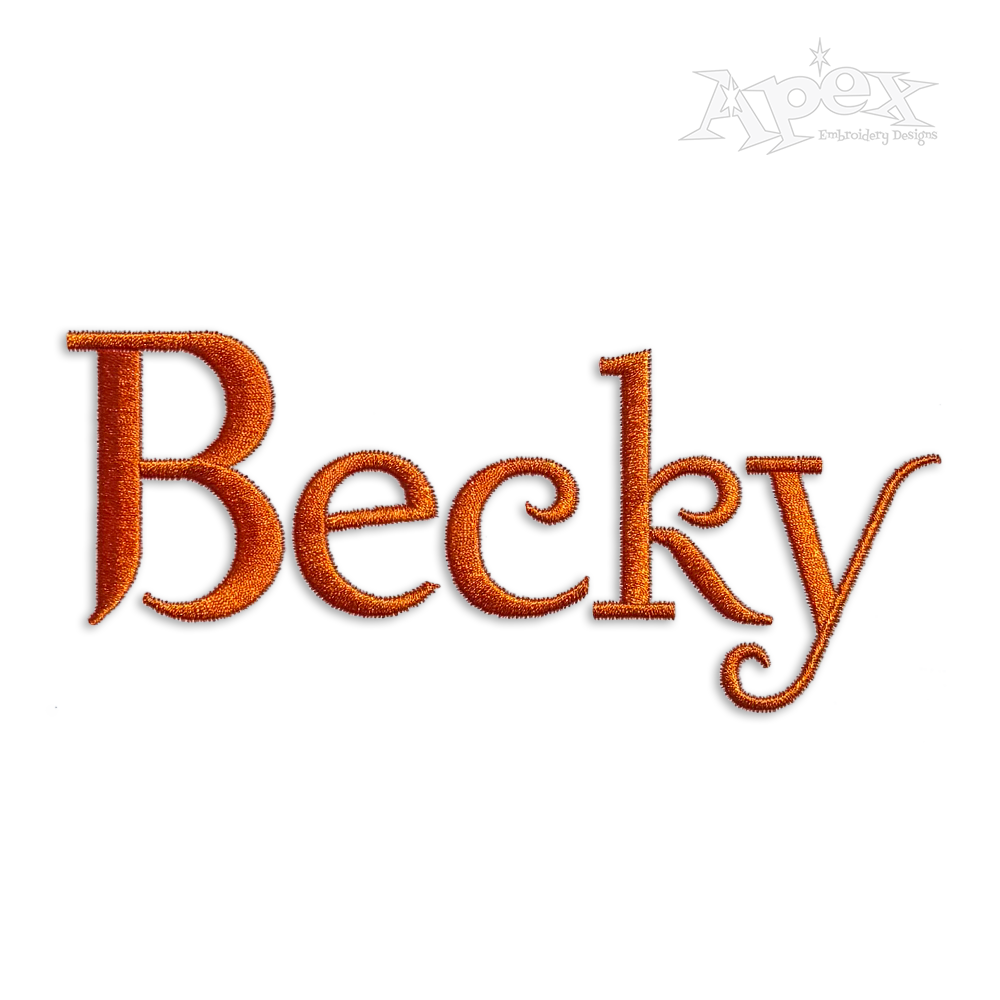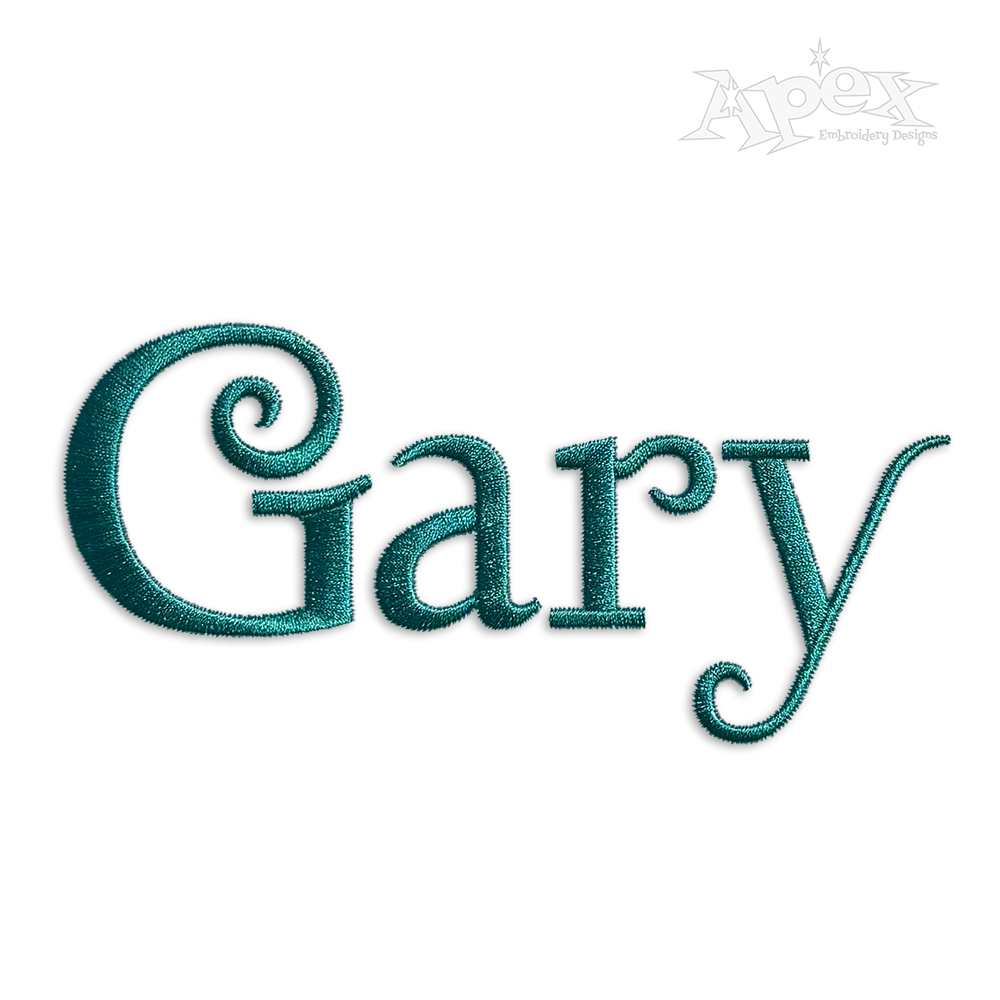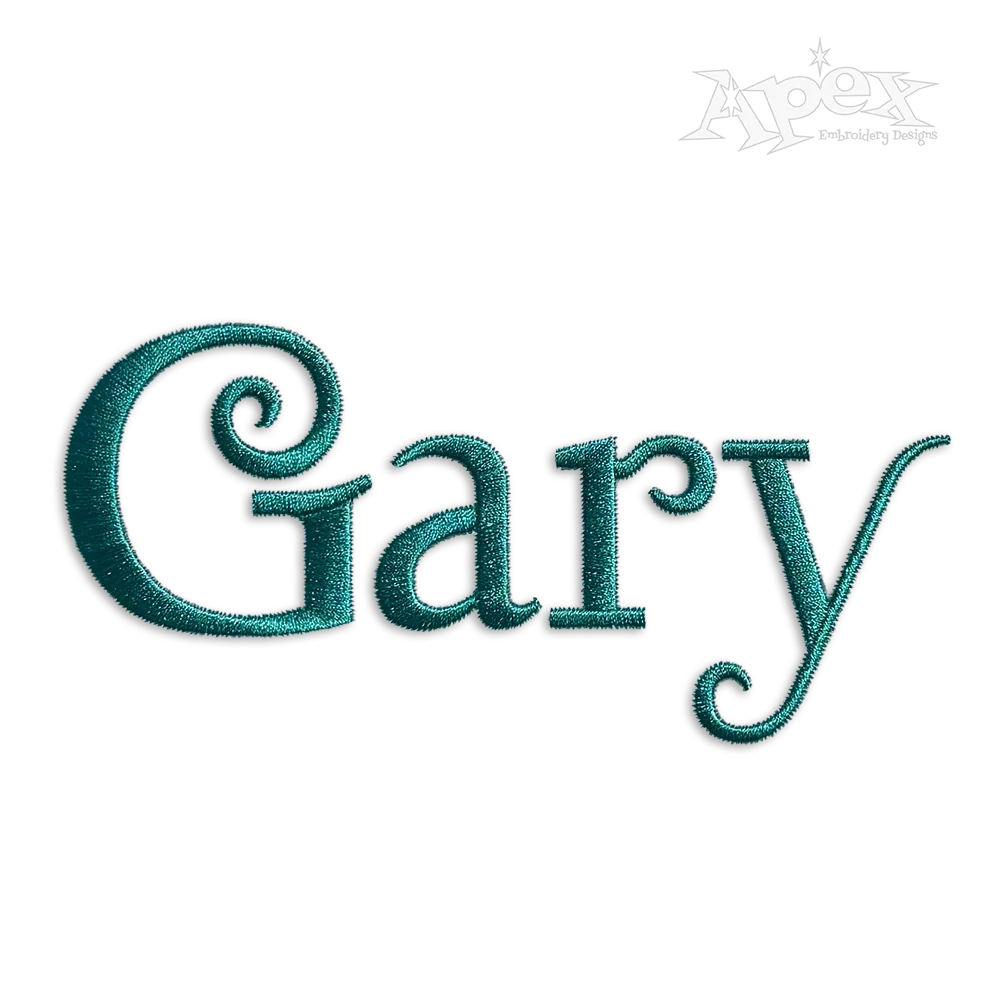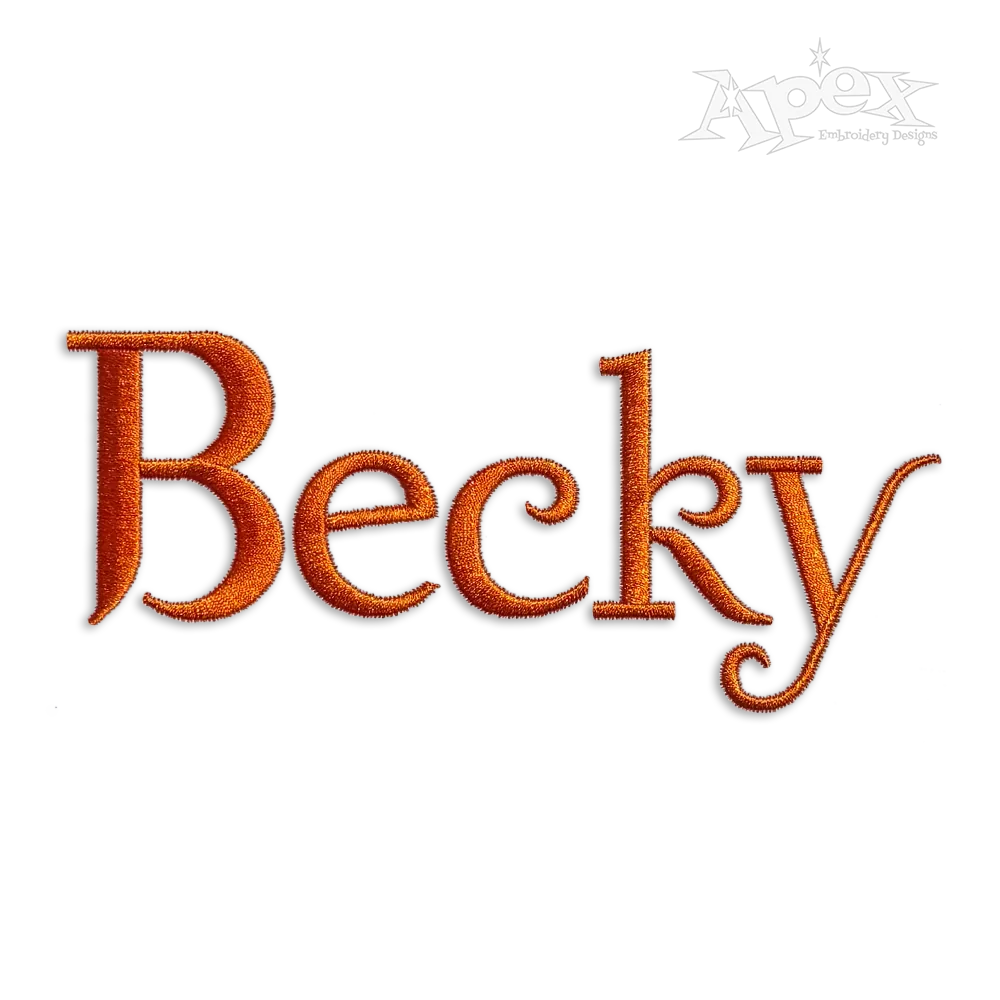
Twilight Embroidery Font
Twilight Embroidery Font captures brooding, mist-shrouded beauty of Pacific Northwest evergreen forests. Digitized for dark romance lovers and cinematic typography enthusiasts, this satin stitch alphabet balances elegant restraint with striking gothic tension. Every needle path honors dramatic fantasy aesthetic, turning everyday fabric into personalized heirloom embroidery rich with storybook drama.
Twilight Craft & Letterform Details
Crafting this bespoke typography required meticulous density mapping and precise pull-compensation adjustments. Distinctive silhouette draws inspiration from iconic literary cover art, distinguished by razor-sharp flared serifs, knife-edge terminals, and elongated sweeping ascenders. Note delicate teardrop loop crowning lowercase 'i' alongside soaring, scythe-curved stems on double 'l' letterforms. We engineered stitch pathways with smooth satin column transitions, ensuring continuous thread sheen without puckering across lightweight linens or dense fleece. Balanced underlay provides structural lift, giving each character crisp three-dimensional presence on finished textiles.